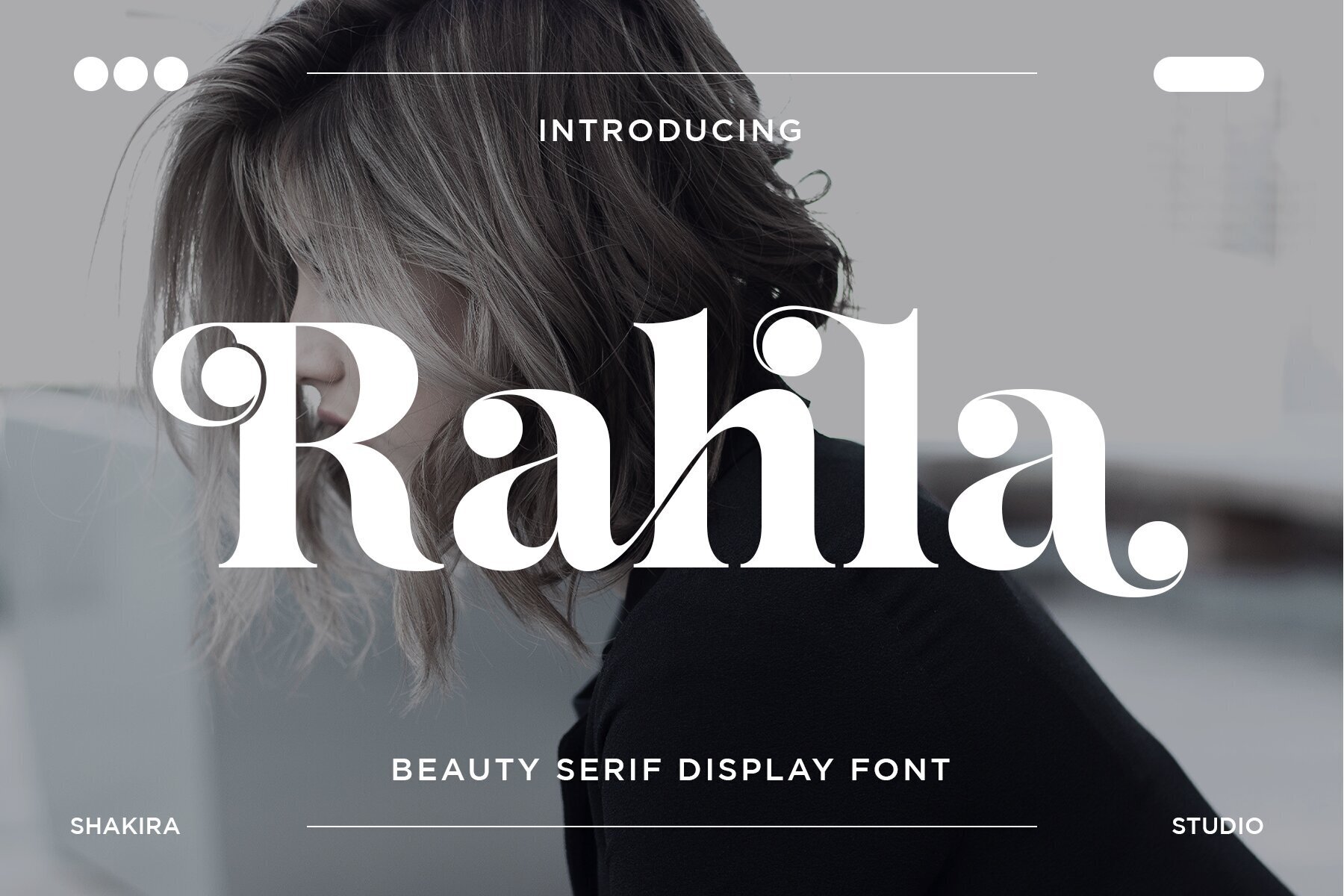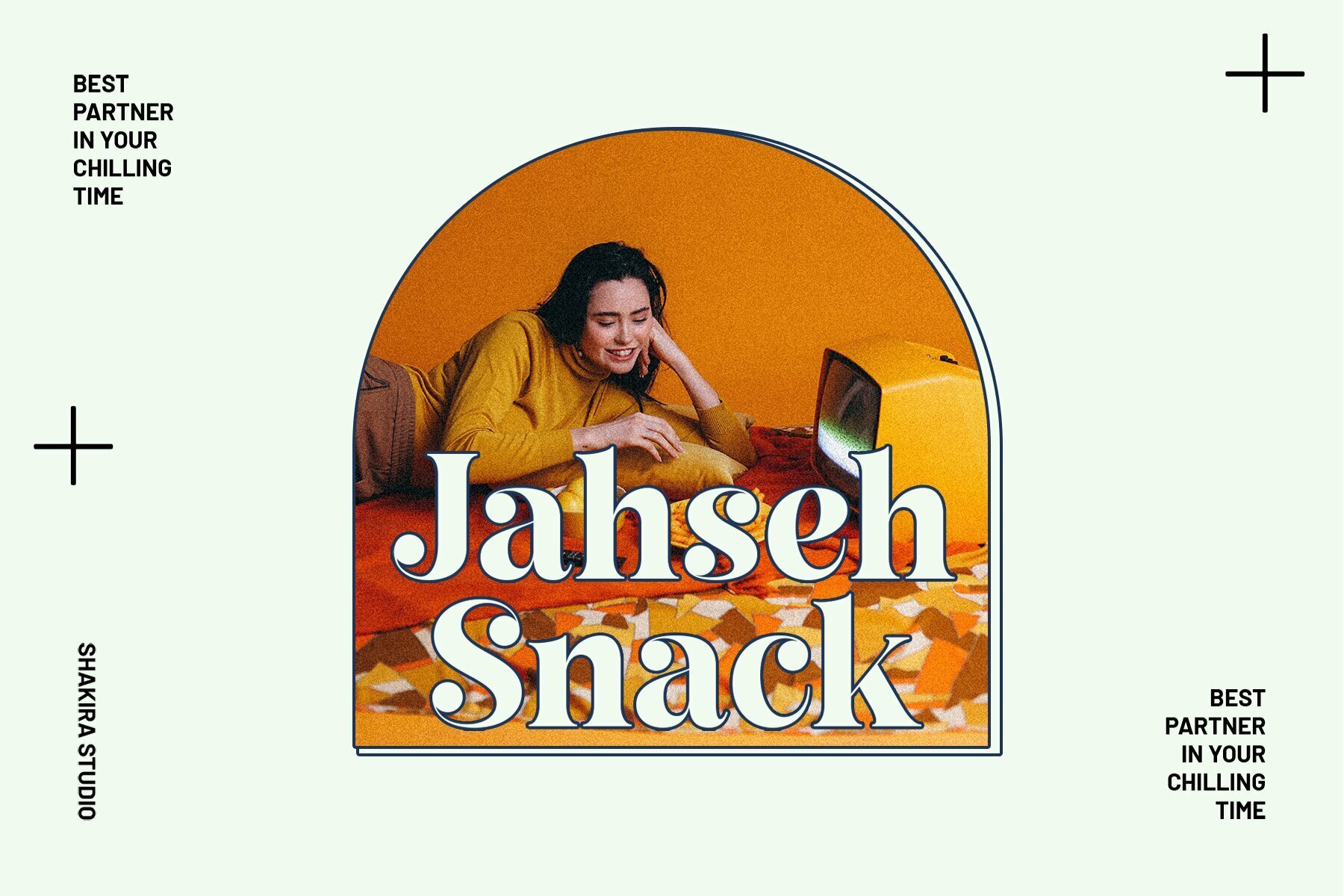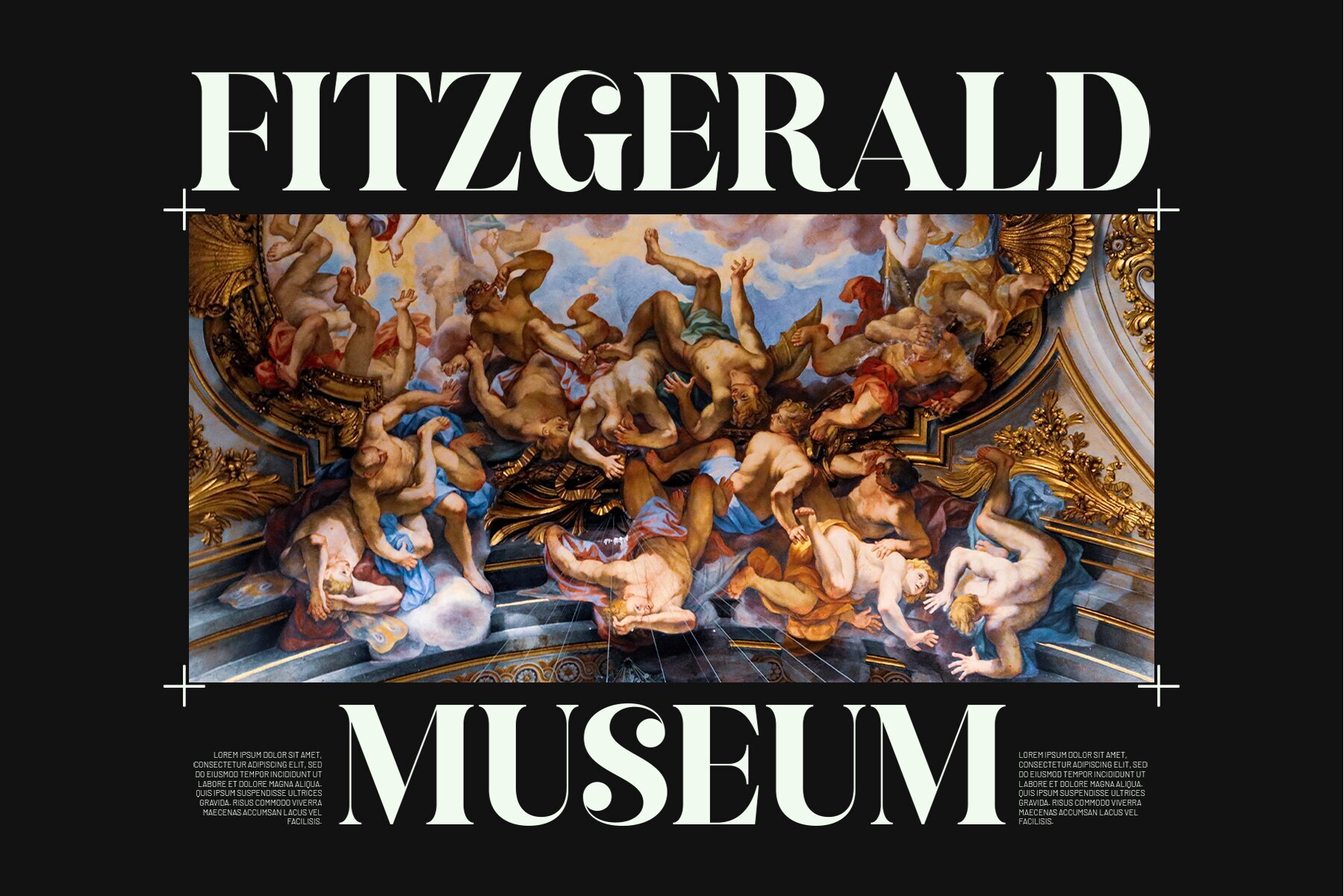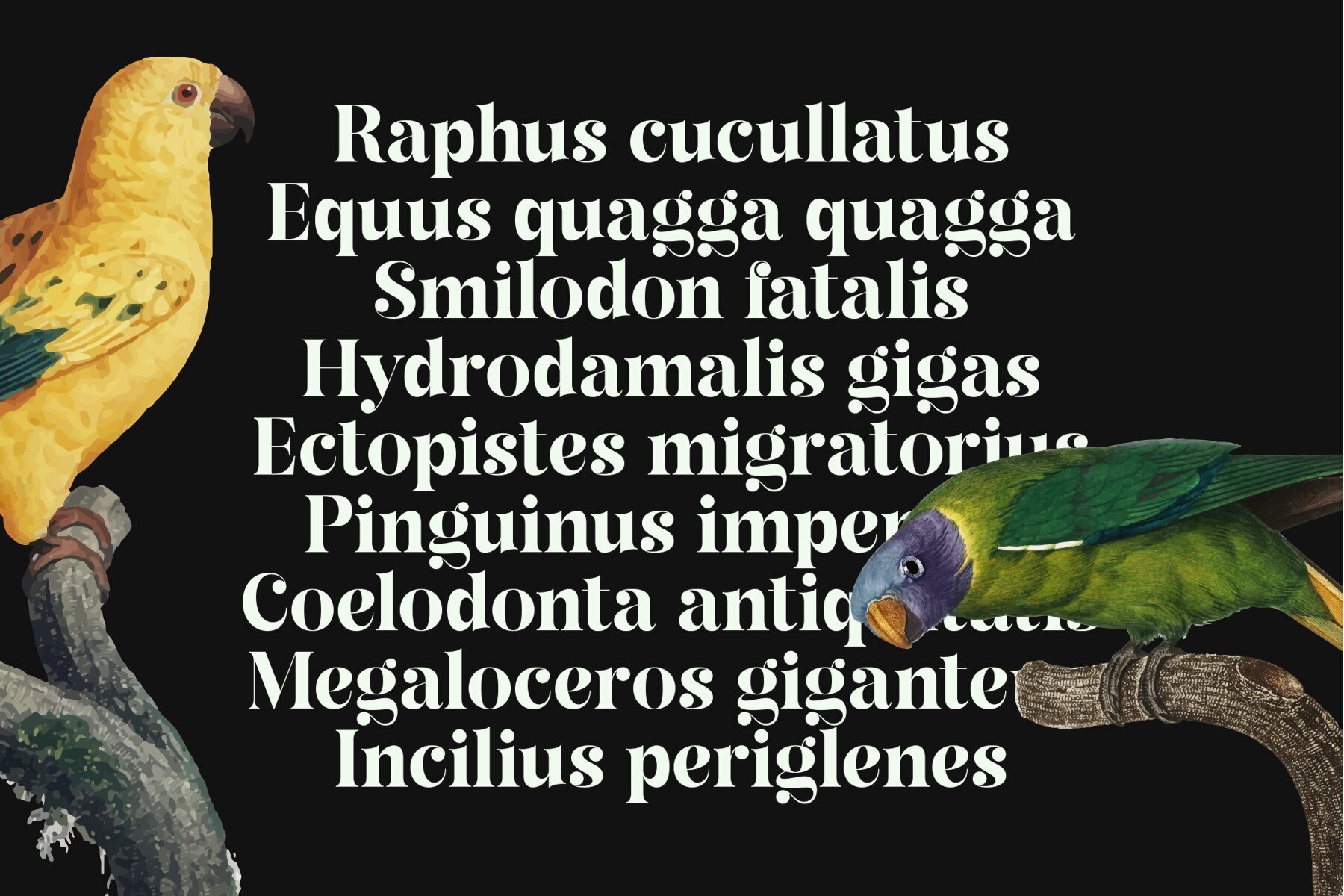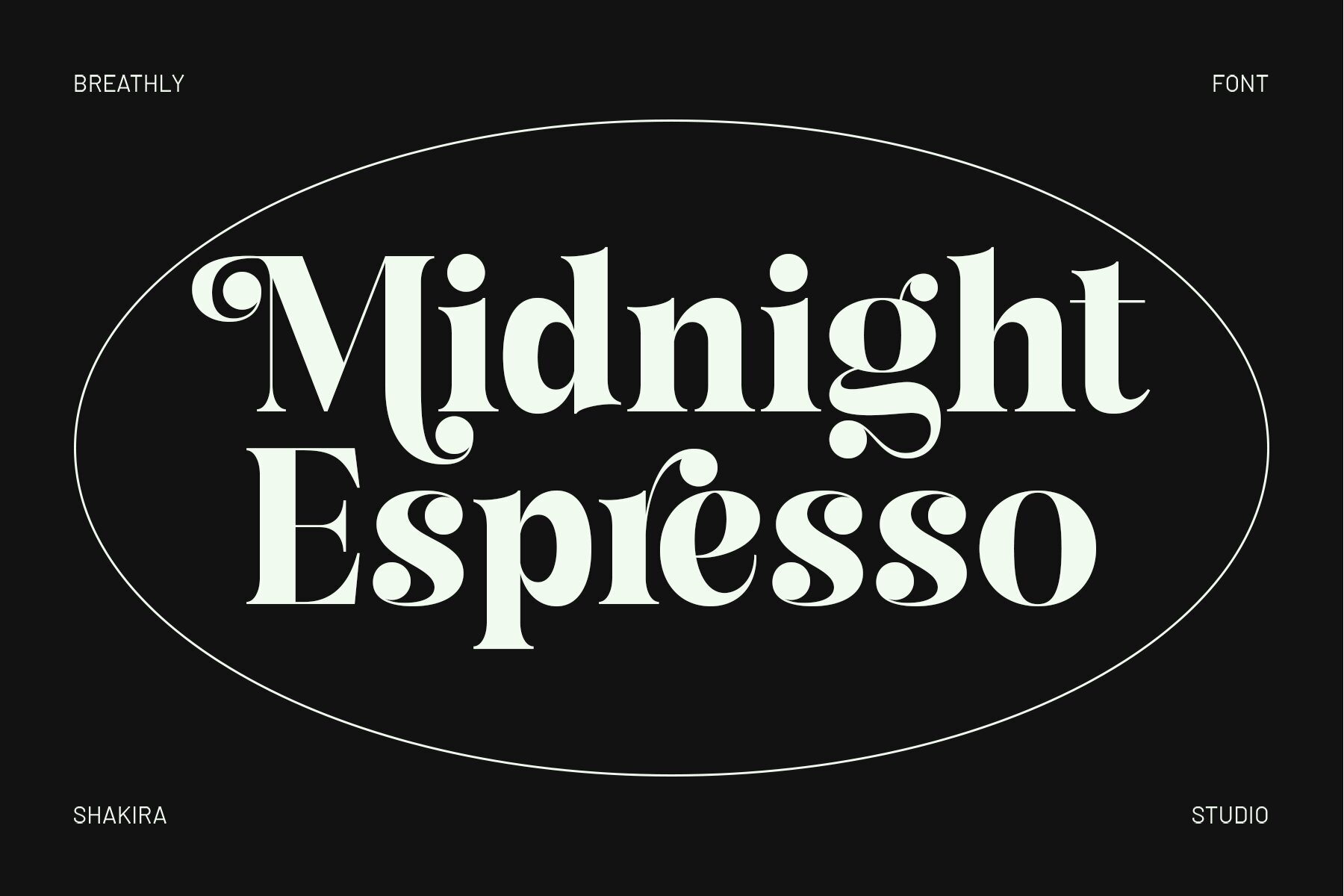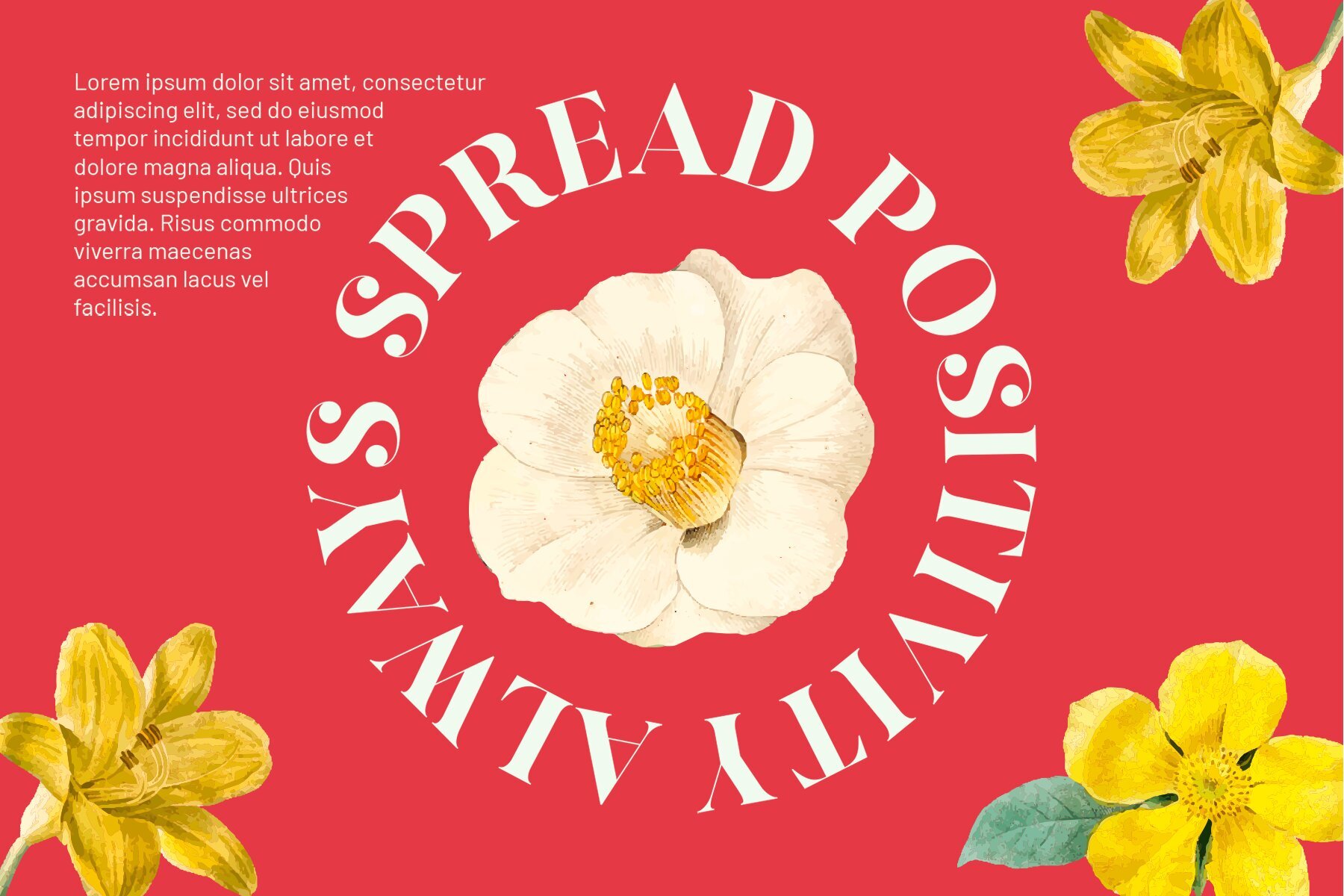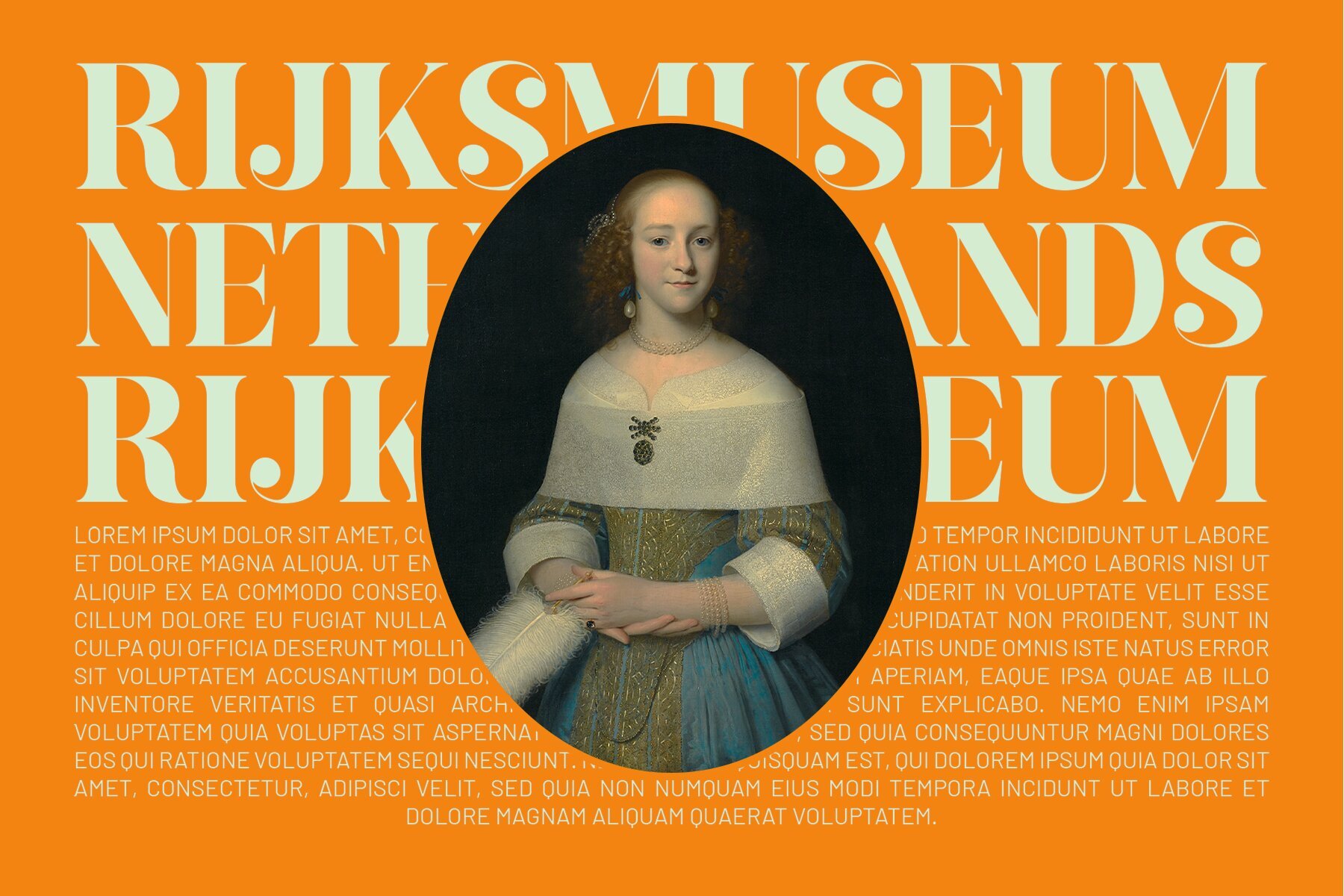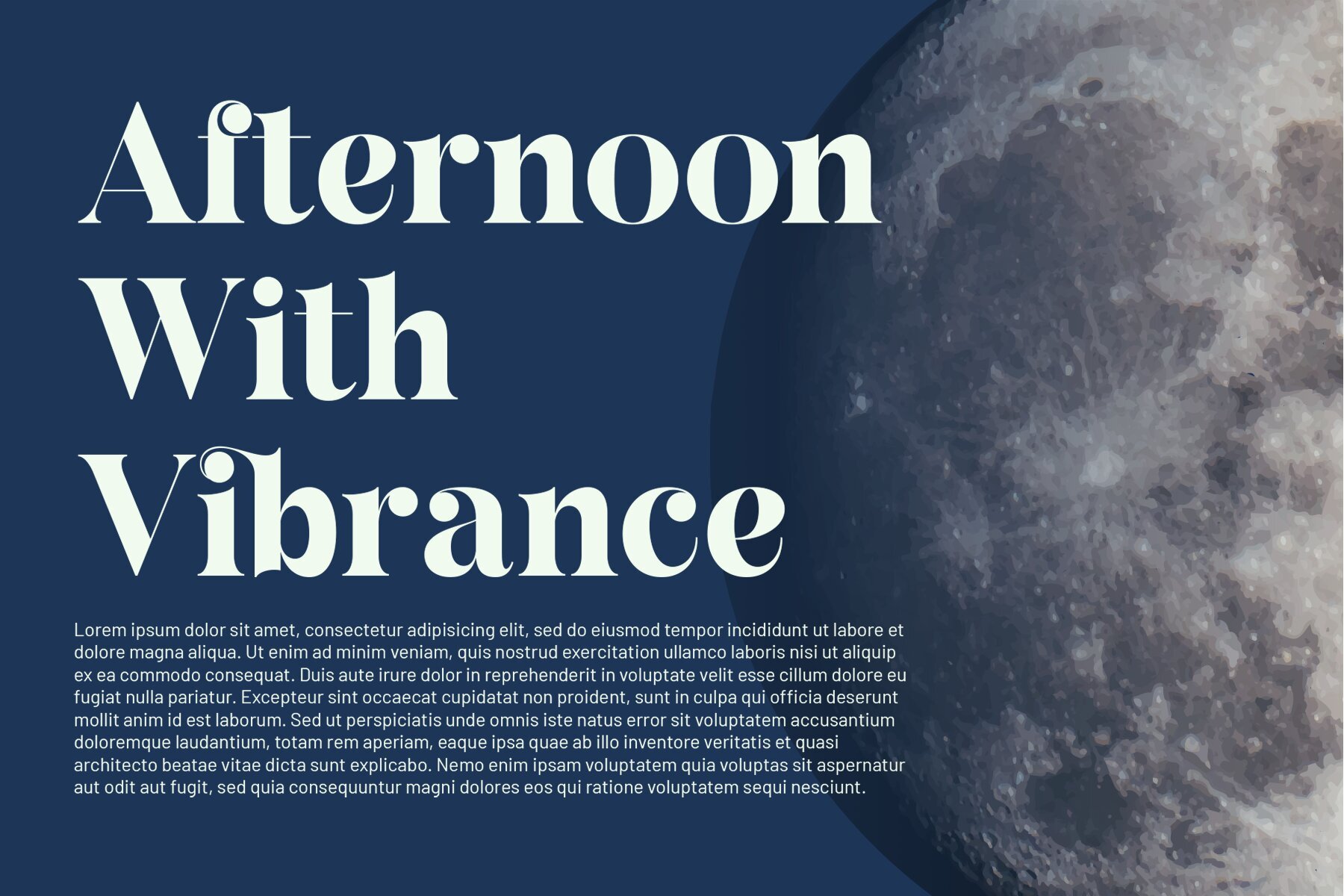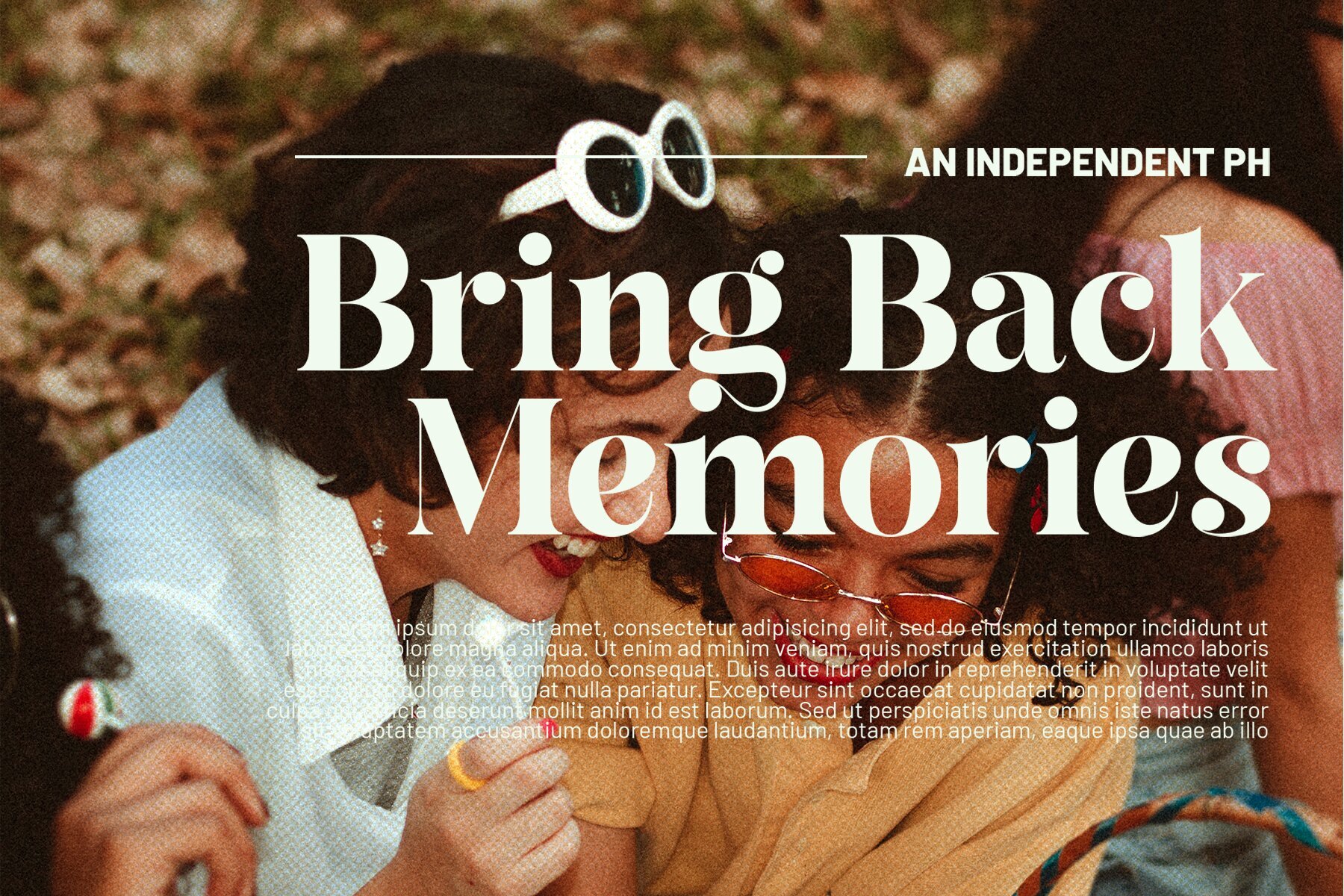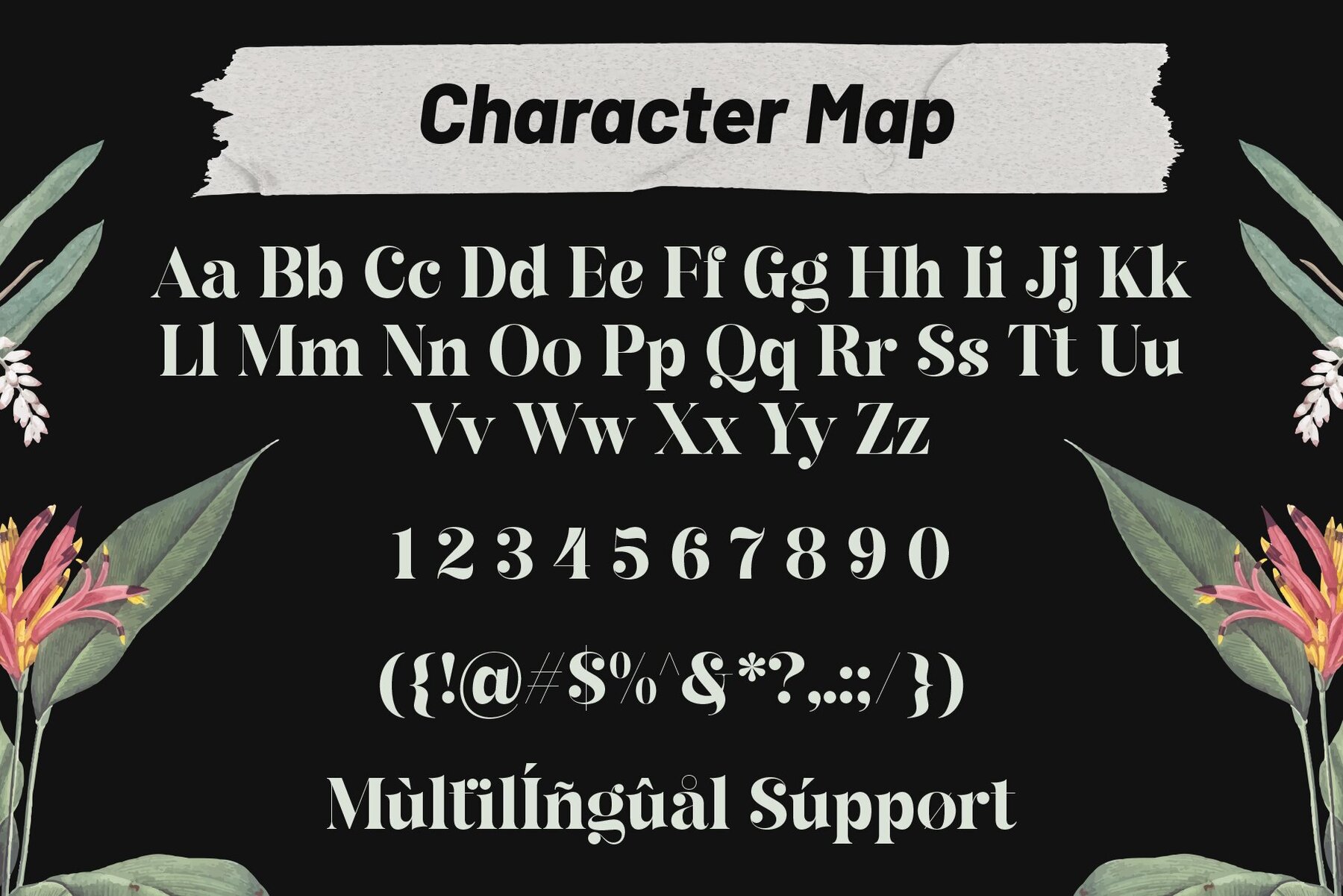
Rahla Font
Rahla Regular
Rahla Italic
"Rahla" redefines modern serif elegance, merging contemporary aesthetics with timeless sophistication. This captivating typeface features exquisite serifs and sleek details, making it ideal for those in search of a modern yet elegant typographic solution. Unleash your creativity with "Rahla" through its diverse alternates and ligatures, allowing you to add individuality and style to your designs. This font isn't just a typeface; it’s a visual journey that blends modern flair with enduring sophistication. Enhance your projects with the graceful and stylish aesthetics of "Rahla," setting a new standard for Beauty Modern Serif Display fonts in today's design landscape. Supports a wide array of languages: Afrikaans, Albanian, Catalan, Croatian, Czech, Danish, Dutch, English, Estonian, Finnish, French, German, Hungarian, Icelandic, Italian, Lithuanian, Maltese, Norwegian, Polish, Portuguese, Slovenian, Spanish, Swedish, Turkish, and Zulu.Rahla: The Beauty of Modern Serif Display
Creative Flexibility
Elevate Your Projects
Multilingual Support